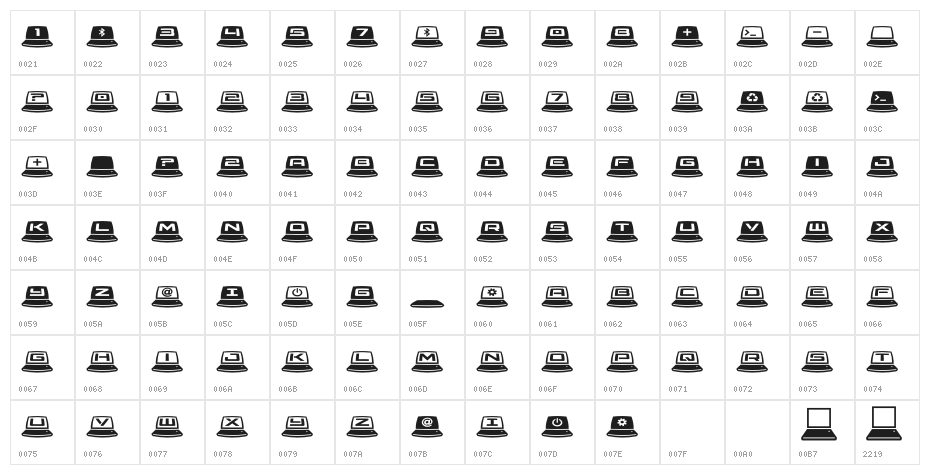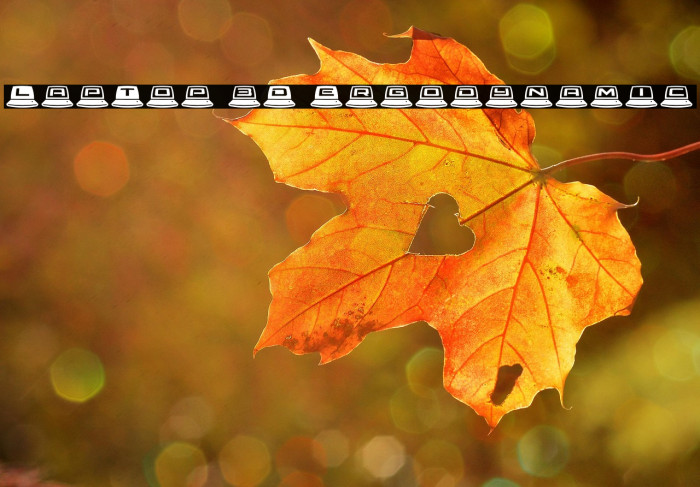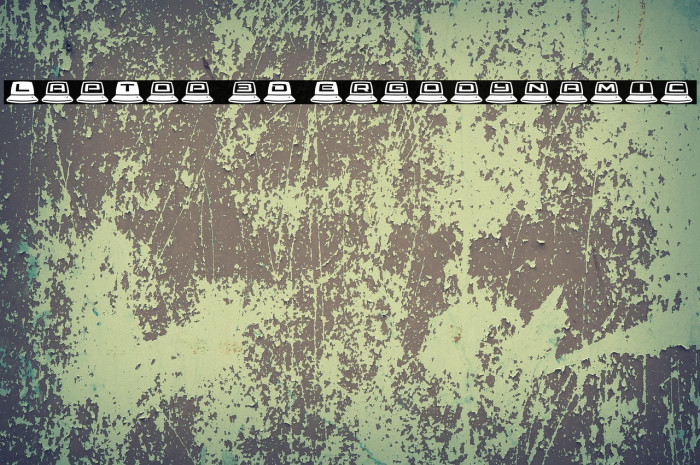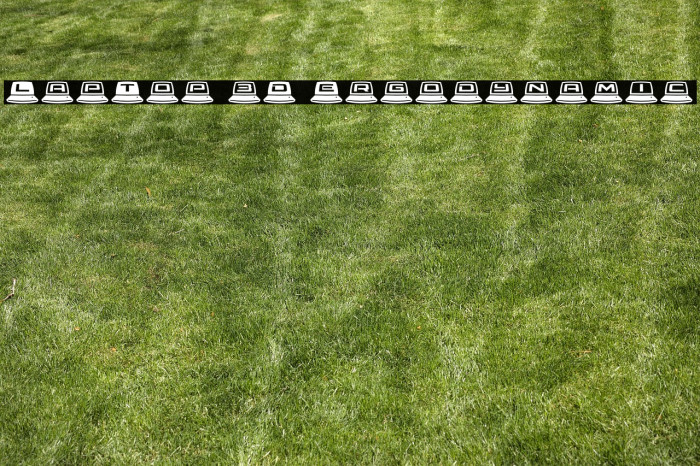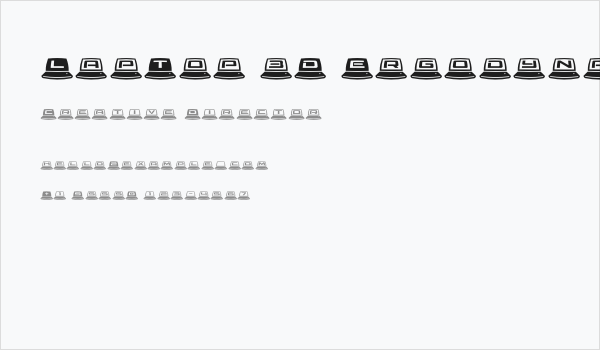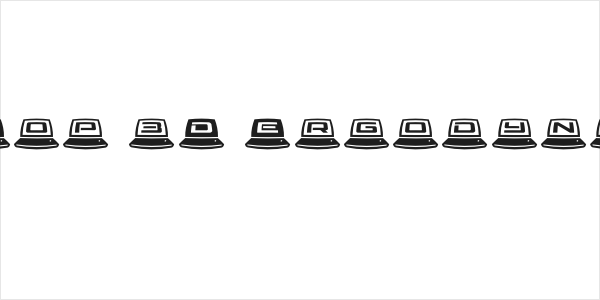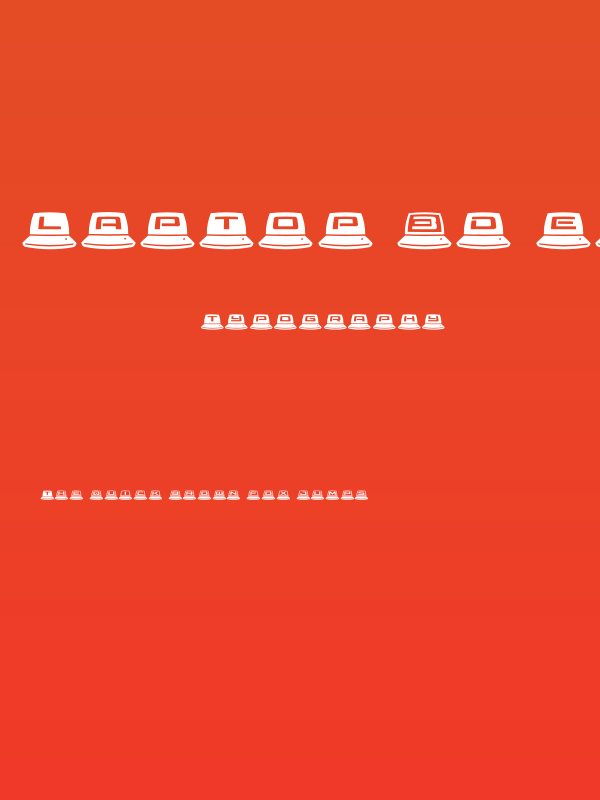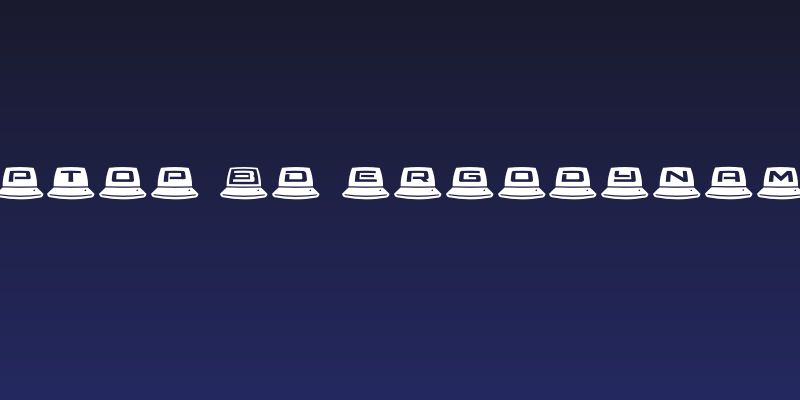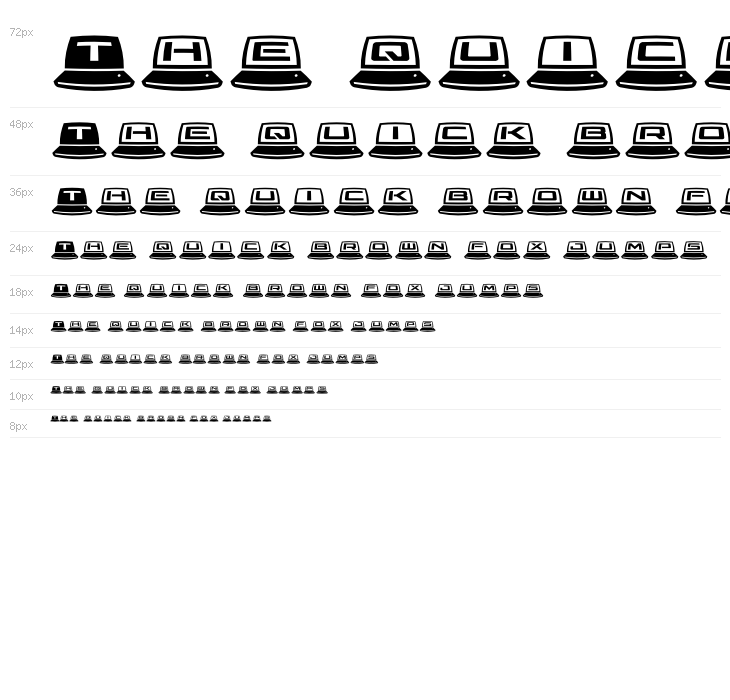
LapTop 3D Ergodynamic Font
LapTop 3D Ergodynamic Description
This font features a unique and playful design where each character is styled to resemble a laptop key. The letters and numbers are encased within a 3D keycap shape, giving a dynamic and ergonomic appearance. The characters are bold and blocky, with a modern aesthetic that stands out. The font is highly stylized, making it ideal for creative and tech-themed projects. The overall look is both futuristic and functional, capturing the essence of digital interfaces and technology.